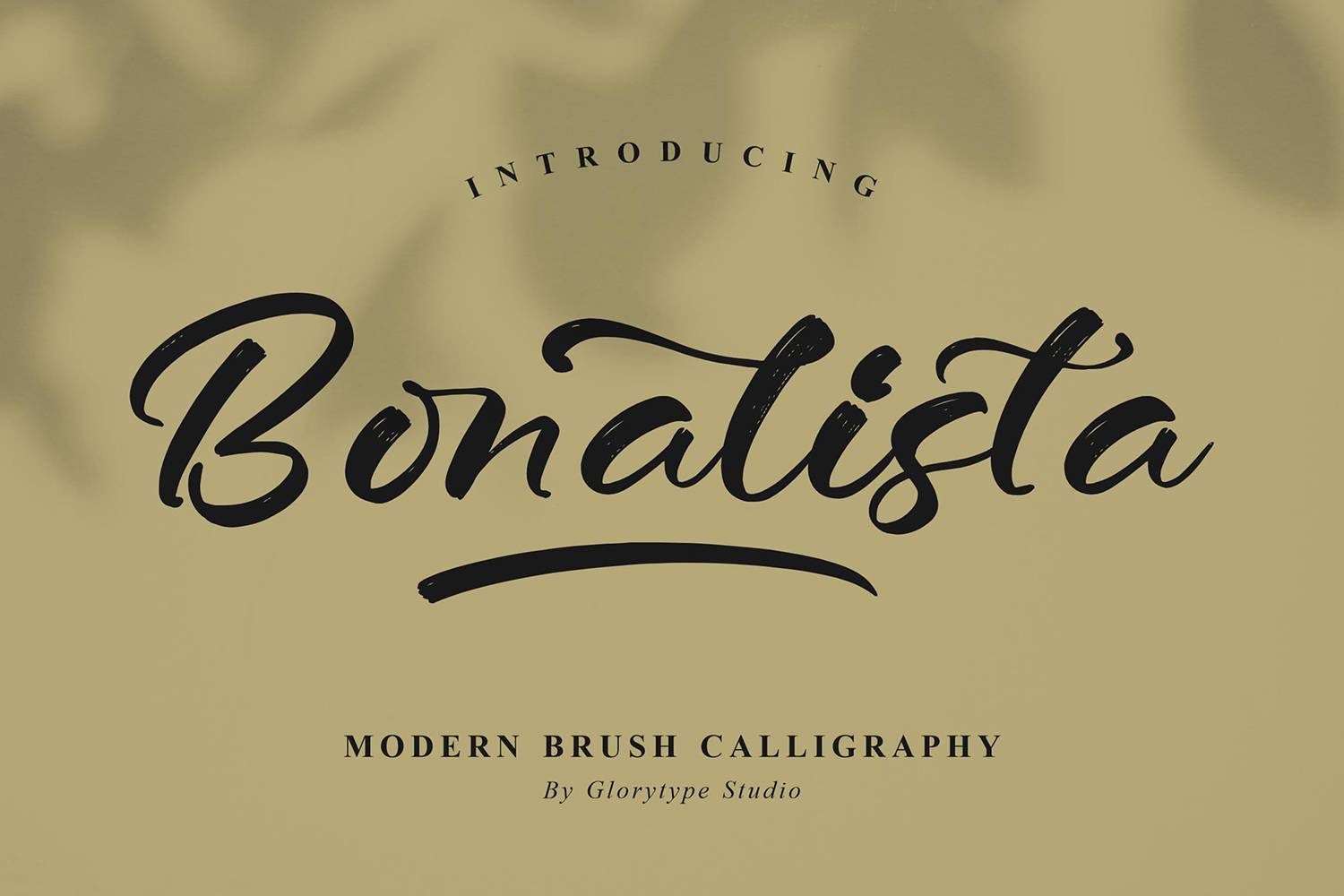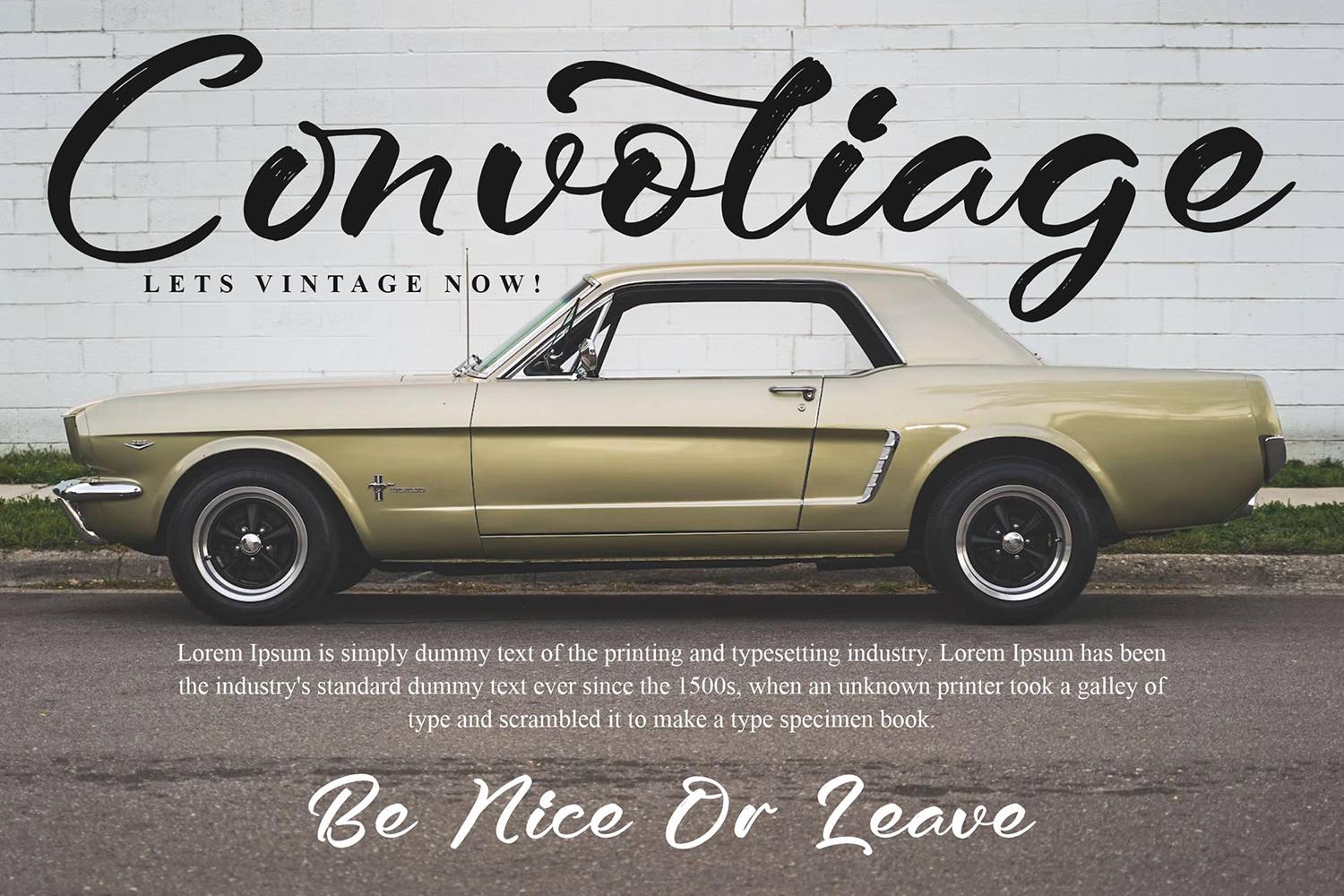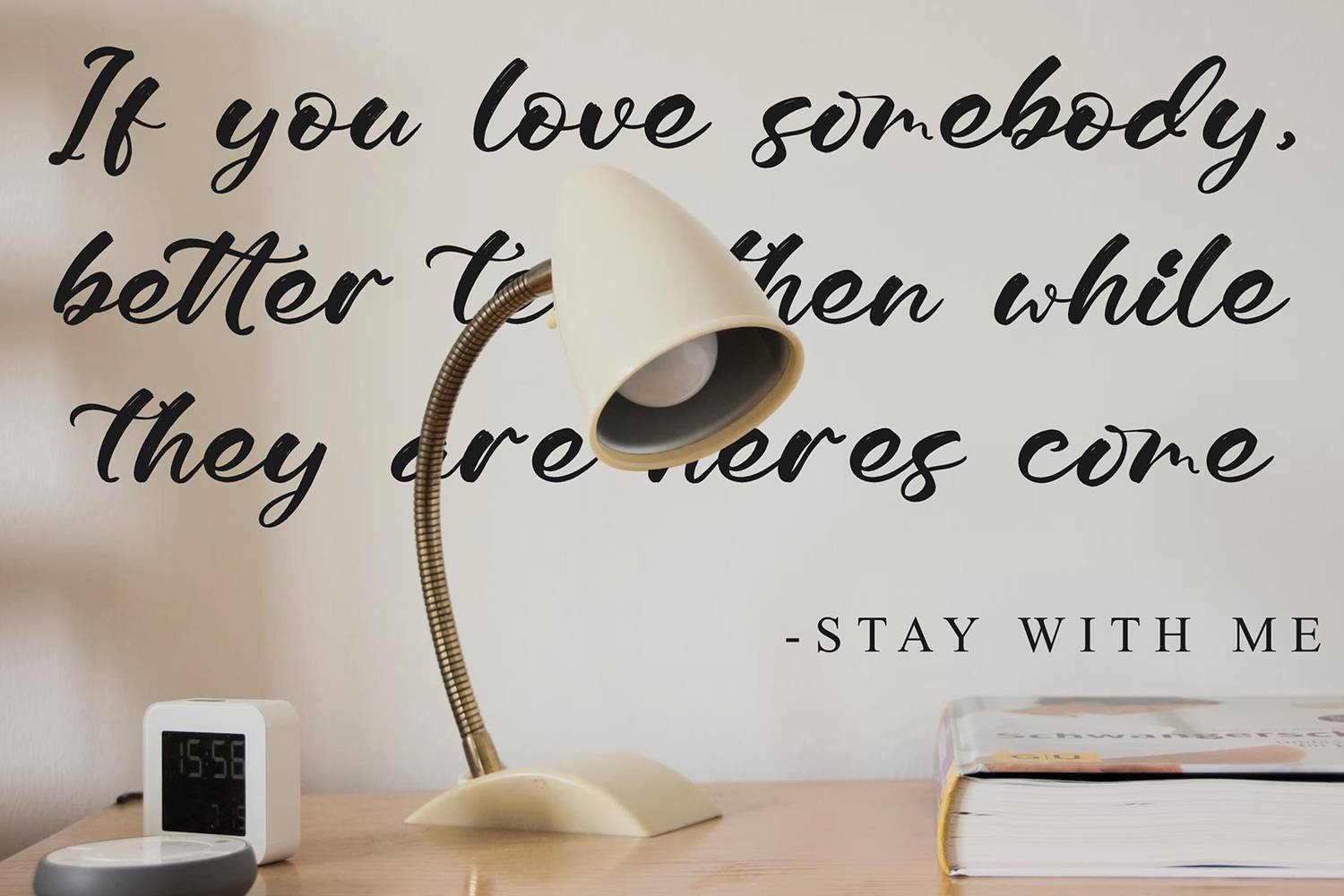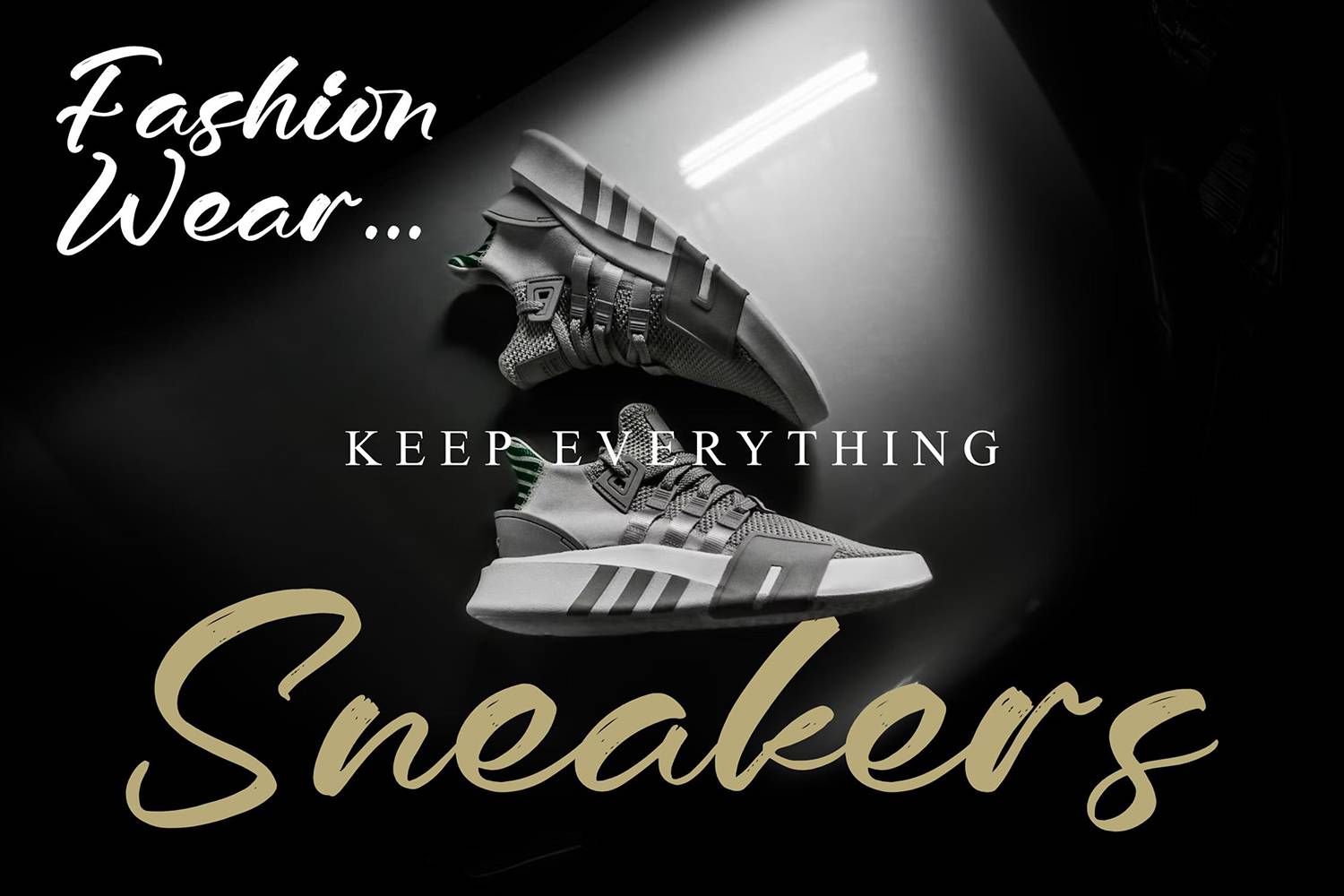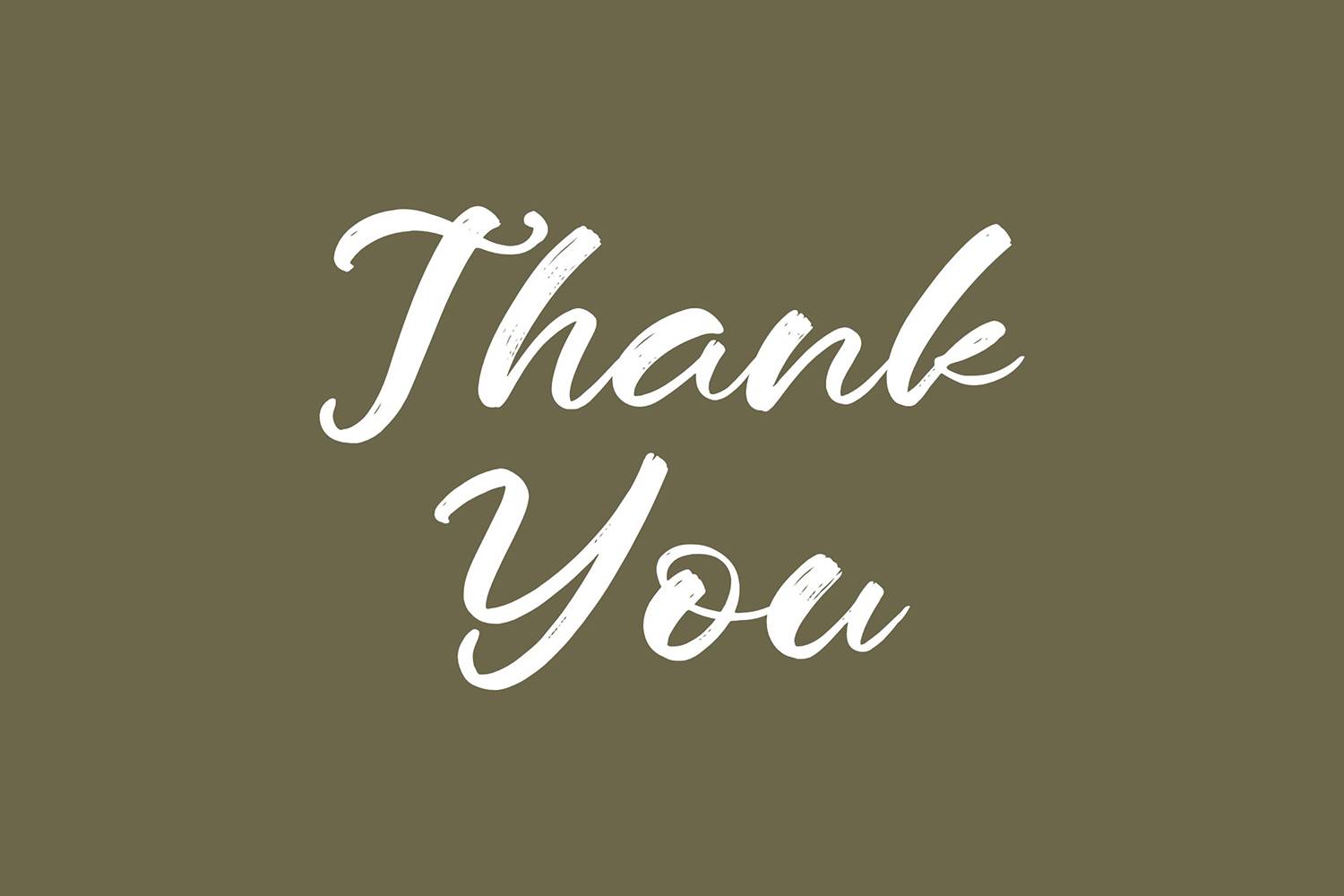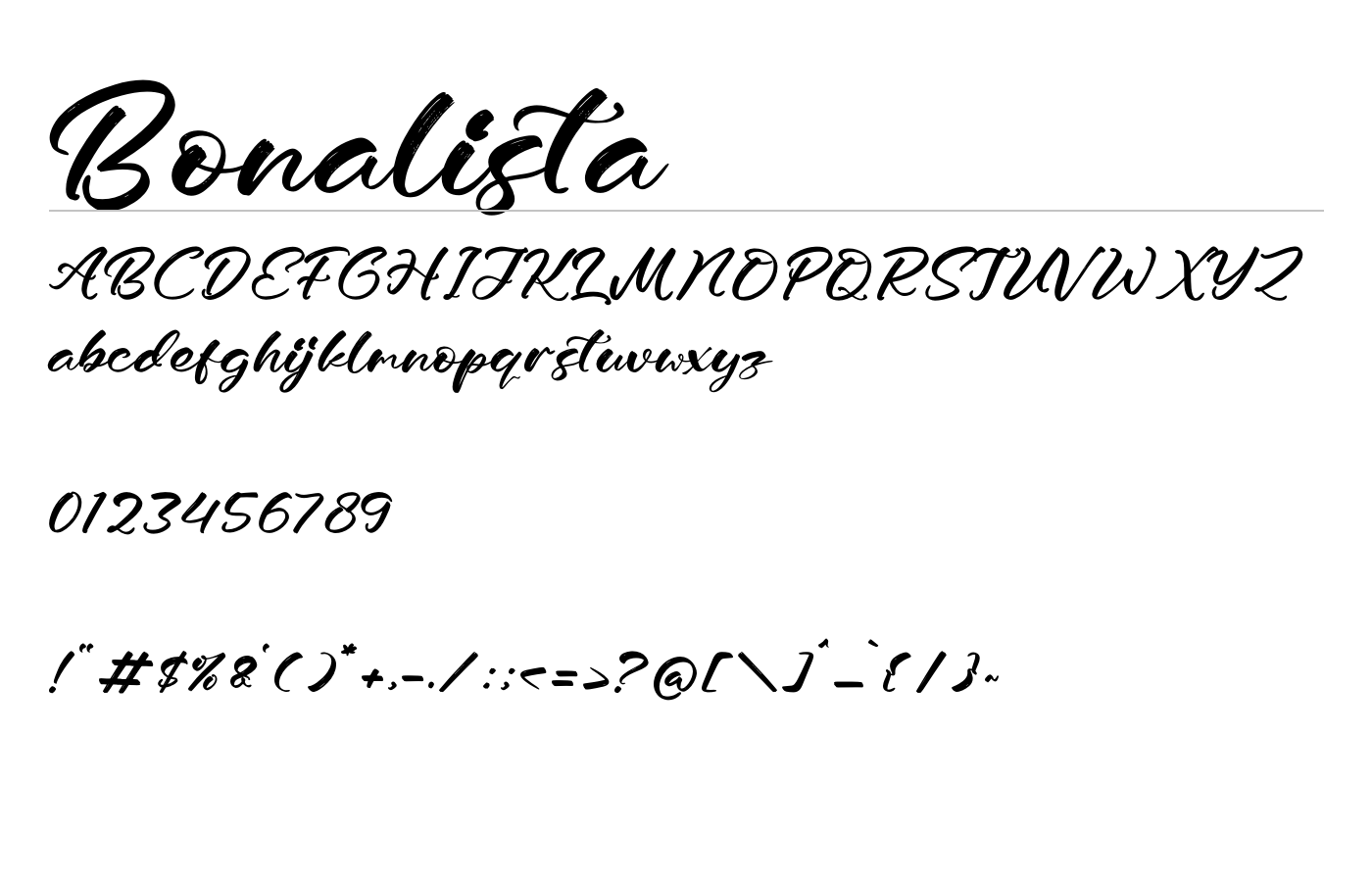
Bonalista is a stylish script font with a dynamic, hand-lettered look that exudes elegance and warmth. Its smooth, flowing strokes vary in thickness, giving it a casual yet refined character ideal for branding, invitations, and creative projects that want a personal, artistic touch. This font works best in logos, headlines, and packaging where a modern, friendly, and approachable vibe is desired.
Bonalista Font
About Bonalista Font